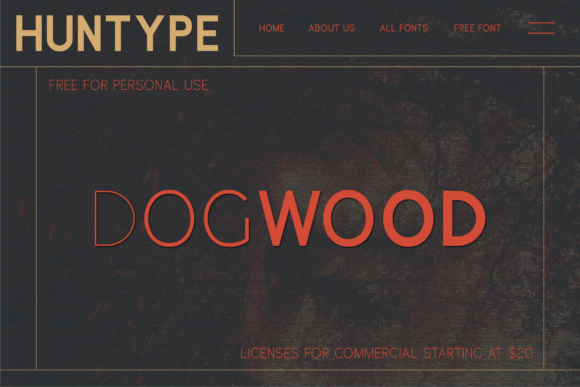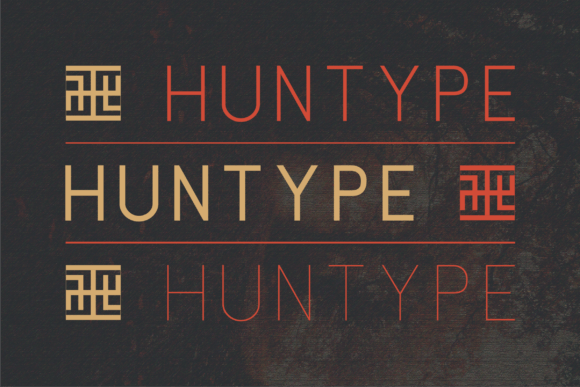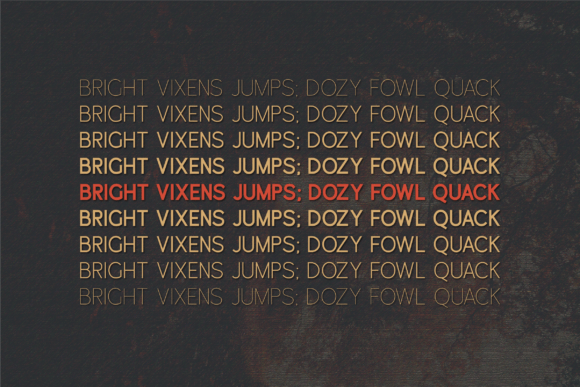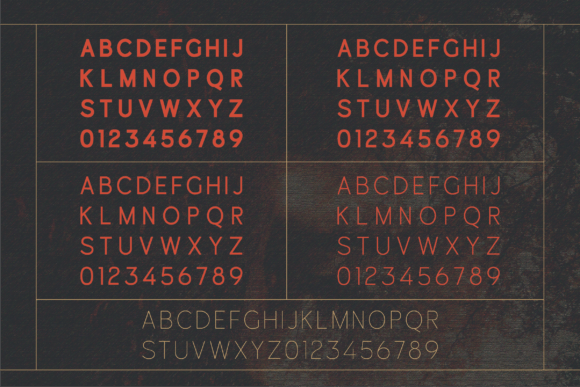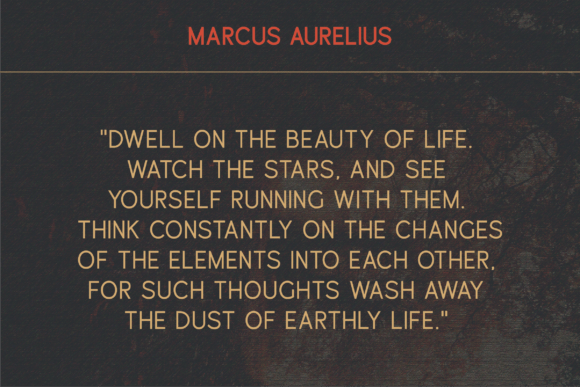
Introducing Dogwood Font: A Modern and Versatile Typeface
Dogwood is a modern and versatile font family that seamlessly blends clean geometric forms with subtle sophistication. This adaptable style is evident in the precise letterforms and contemporary aesthetic, making it an ideal choice for designers and crafters looking for a reliable and stylish typeface.
A Harmony of Sharp Lines and Gentle Curves
One of the standout features of the Dogwood font family is its perfect balance of sharp lines and gentle curves. This harmonious blend of contrasting elements creates a visually appealing and refined look that is sure to elevate any design. Whether you’re working on a bold headline or a subtle body text, Dogwood’s carefully crafted letterforms will ensure that your message is conveyed with clarity and style.
A Comprehensive Font Family for Diverse Applications
The Dogwood font family consists of five distinct fonts: Thin, Light, Regular, Bold, and Black. Each font is designed to stand alone, impactful and refined in its own right, allowing designers to choose the perfect weight to suit their specific needs.
- Dogwood Black: Bold and impactful, Dogwood Black is perfect for commanding headlines that demand attention. Its robust design ensures that your message will be seen and remembered.
- Dogwood Bold: Strong and persuasive, Dogwood Bold is ideal for key messages that require a bit more emphasis. Its confident style makes it perfect for titles, headings, and other prominent text elements.
- Dogwood Regular: A balanced and versatile mid-weight, Dogwood Regular is suitable for diverse applications, from body text to captions. Its neutral style ensures that it will blend seamlessly into any design.
- Dogwood Light: Subtle and elegant, Dogwood Light is perfect for refined designs that require a touch of sophistication. Its delicate style makes it ideal for use in situations where a more understated approach is desired.
- Dogwood Thin: Delicate and sophisticated, Dogwood Thin adds a minimalist touch to any design. Its subtle style ensures that it will add a touch of elegance without overpowering the surrounding content.
Why Choose Dogwood Font?
So why choose Dogwood font for your next design project? Here are just a few compelling reasons:
- Versatility: With five distinct fonts to choose from, Dogwood offers a level of versatility that is hard to find in other font families.
- Legibility: Dogwood’s precise letterforms and carefully crafted design ensure that it is highly legible, even at small sizes.
- Style: Dogwood’s unique blend of sharp lines and gentle curves creates a visually appealing style that is sure to elevate any design.
- Readability: Whether you’re working on a digital or print project, Dogwood’s clear and refined design ensures that your message will be easily readable.
Design and Crafting Applications
Dogwood font is perfect for a wide range of design and crafting applications, including:
- Graphic Design: Use Dogwood to create stunning visual elements, from brochures to business cards.
- Web Design: Dogwood’s clean and refined design makes it perfect for use on websites and digital applications.
- Branding: Create a lasting impression with Dogwood’s bold and impactful font styles.
- Crafting: From handmade cards to DIY projects, Dogwood’s delicate and sophisticated font styles are perfect for adding a personal touch.
In conclusion, Dogwood font is a modern and versatile typeface that is perfect for designers and crafters looking for a reliable and stylish font family. With its perfect balance of sharp lines and gentle curves, Dogwood is sure to elevate any design. Whether you’re working on a bold headline or a subtle body text, Dogwood’s carefully crafted letterforms will ensure that your message is conveyed with clarity and style. So why wait? Try Dogwood font today and discover the perfect typeface for your next design project.